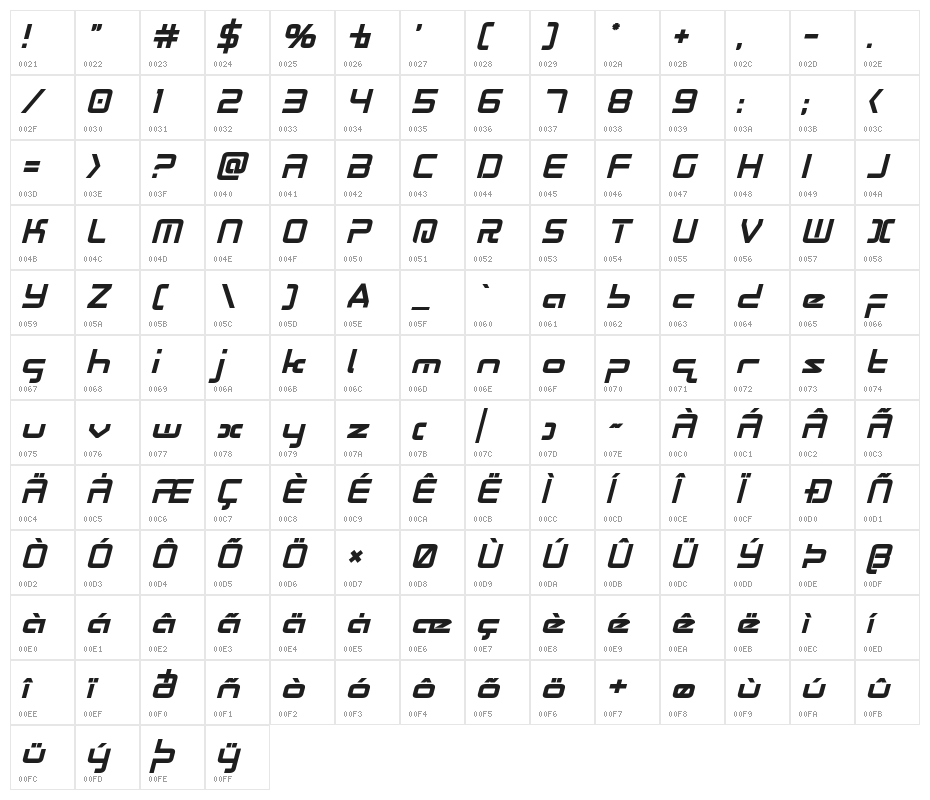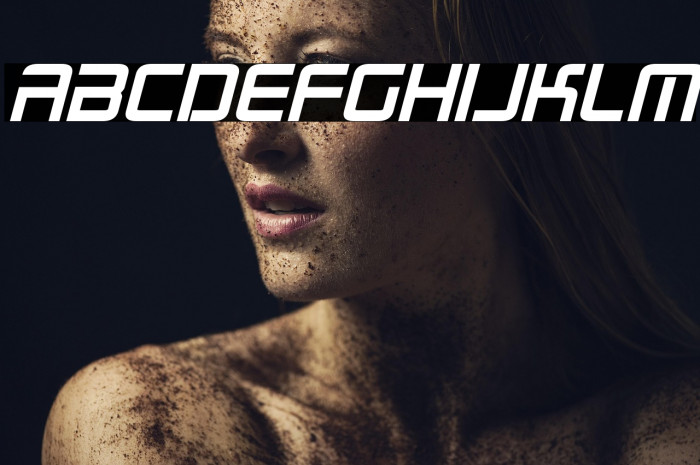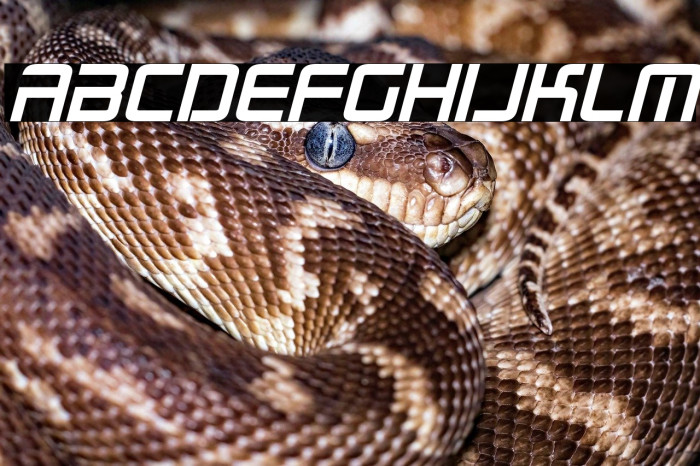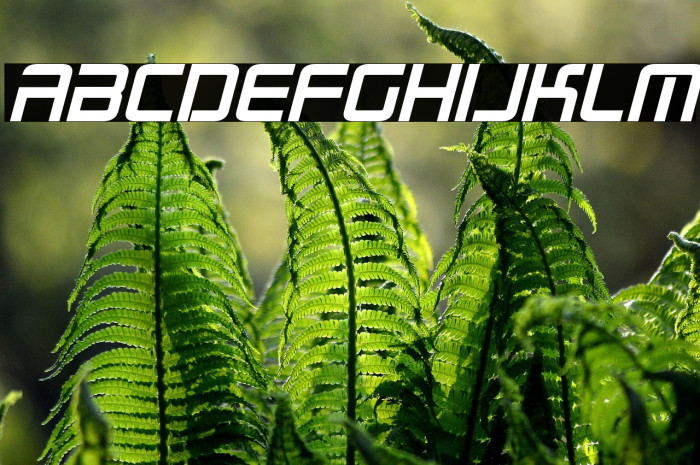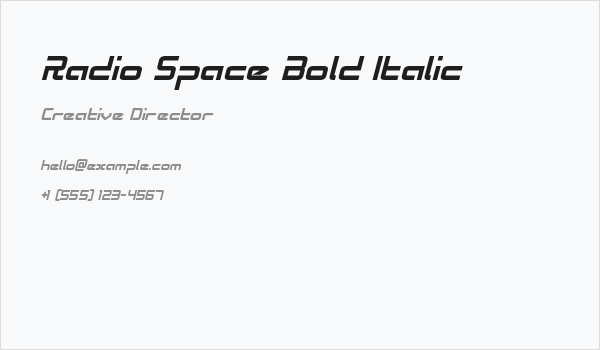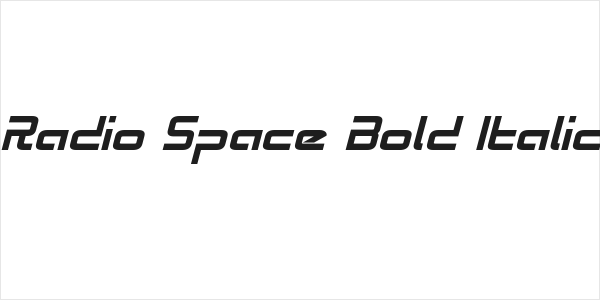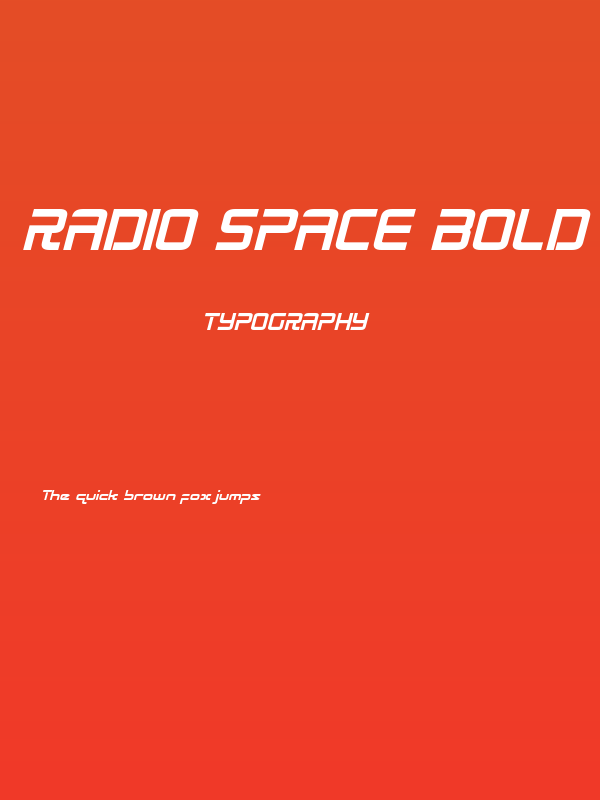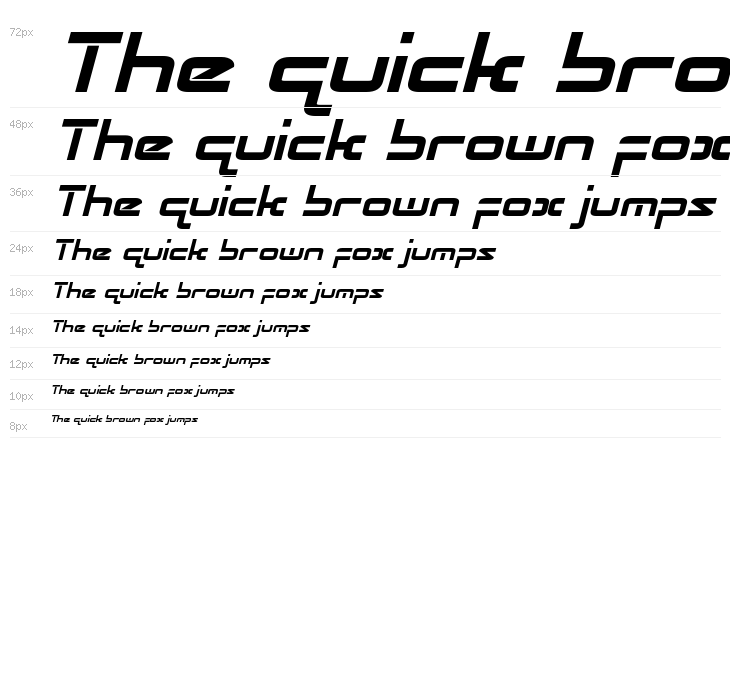
Radio Space Bold Italic Font
Radio Space Bold Italic Description
This font features a bold and italic style with a futuristic and dynamic appearance. The characters are slightly slanted, giving a sense of movement and speed. The strokes are thick and consistent, providing a strong visual impact. The design incorporates angular and geometric elements, making it suitable for modern and tech-oriented projects. The uppercase and lowercase letters maintain a uniform style, while the numbers and special characters complement the overall aesthetic. This font is ideal for creating attention-grabbing headlines, logos, and branding materials that require a contemporary and energetic look.
| Proposed Projects | Ideal for tech branding, sci-fi posters, video game titles, and modern logos. |